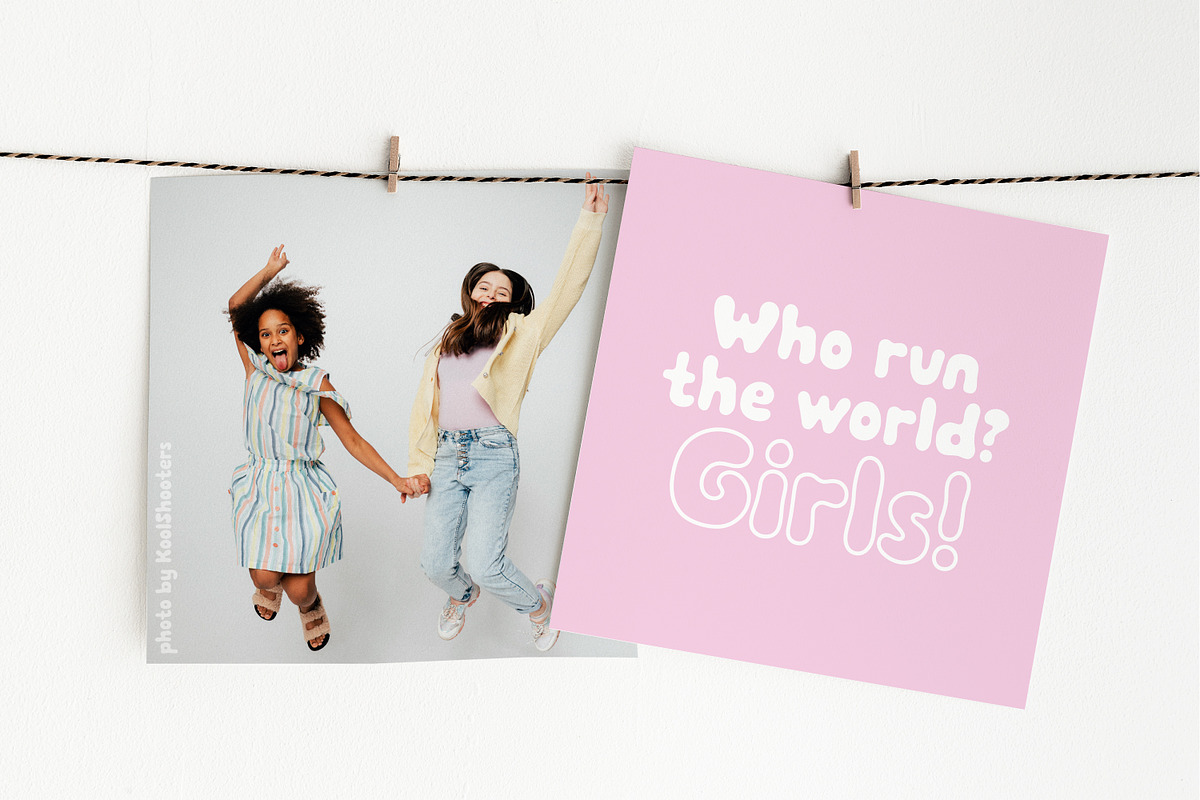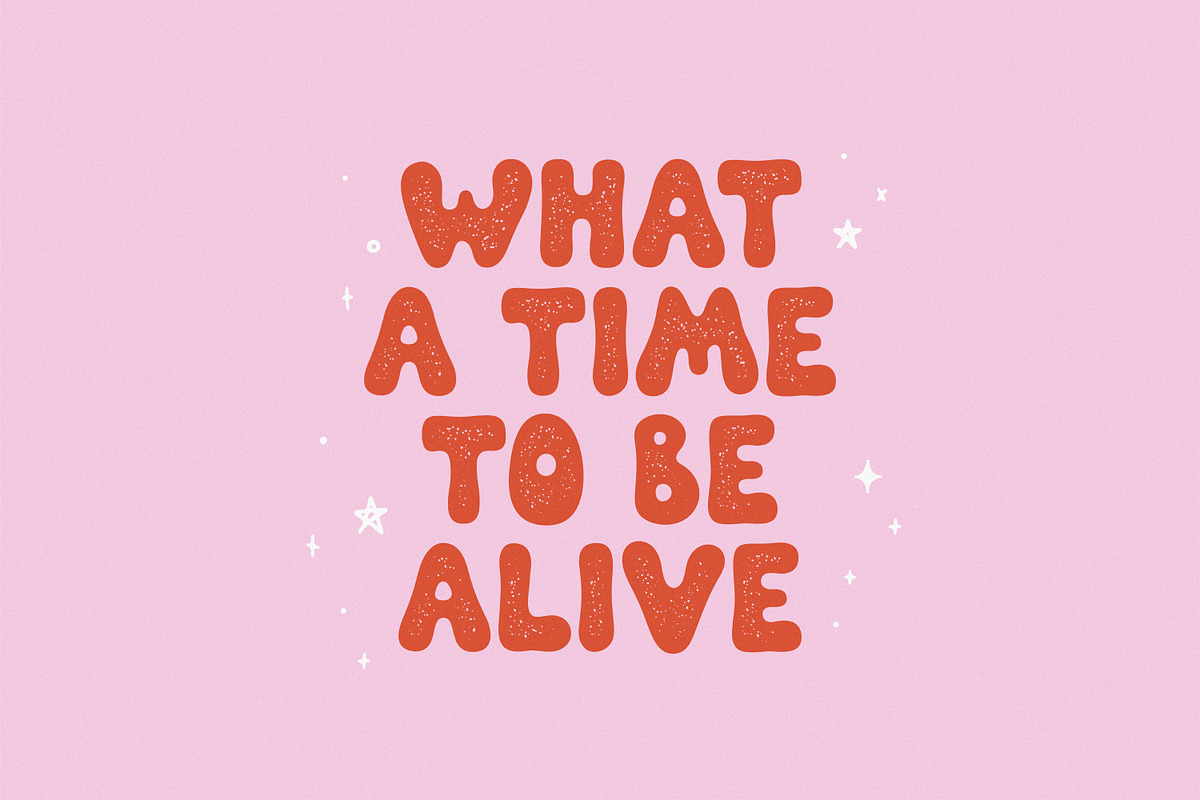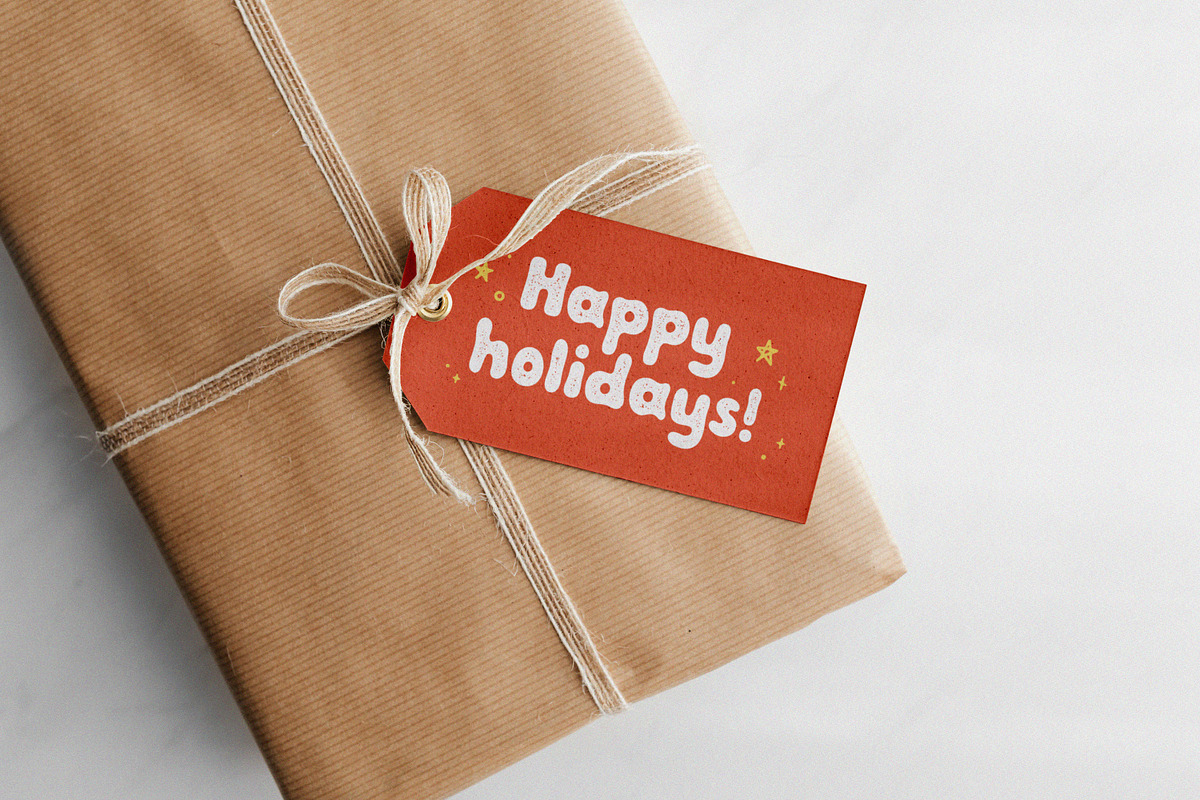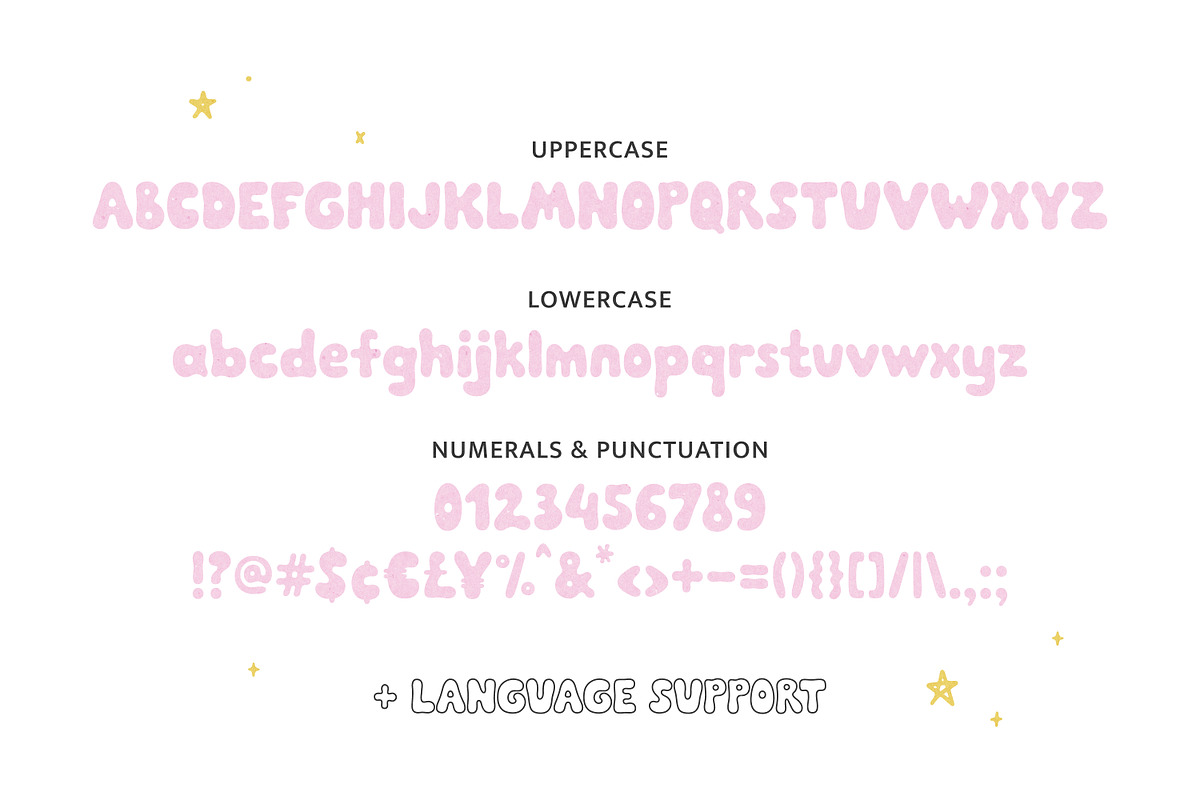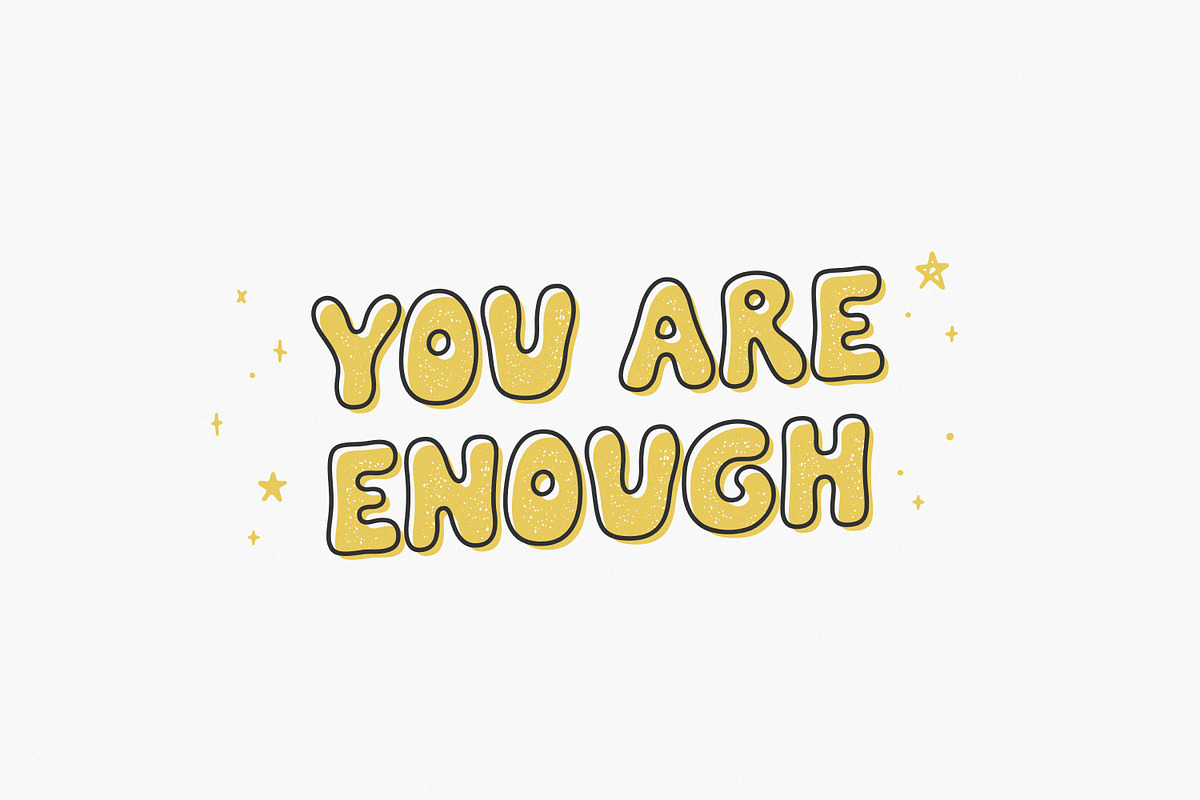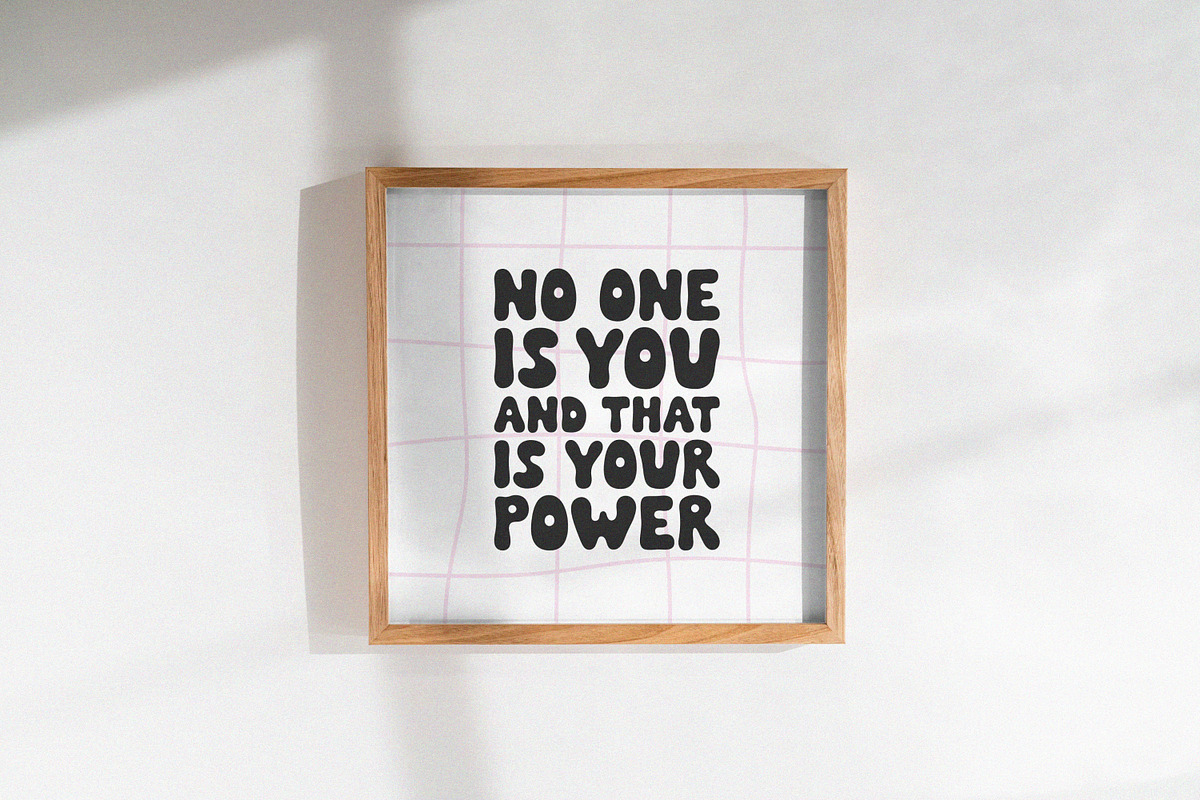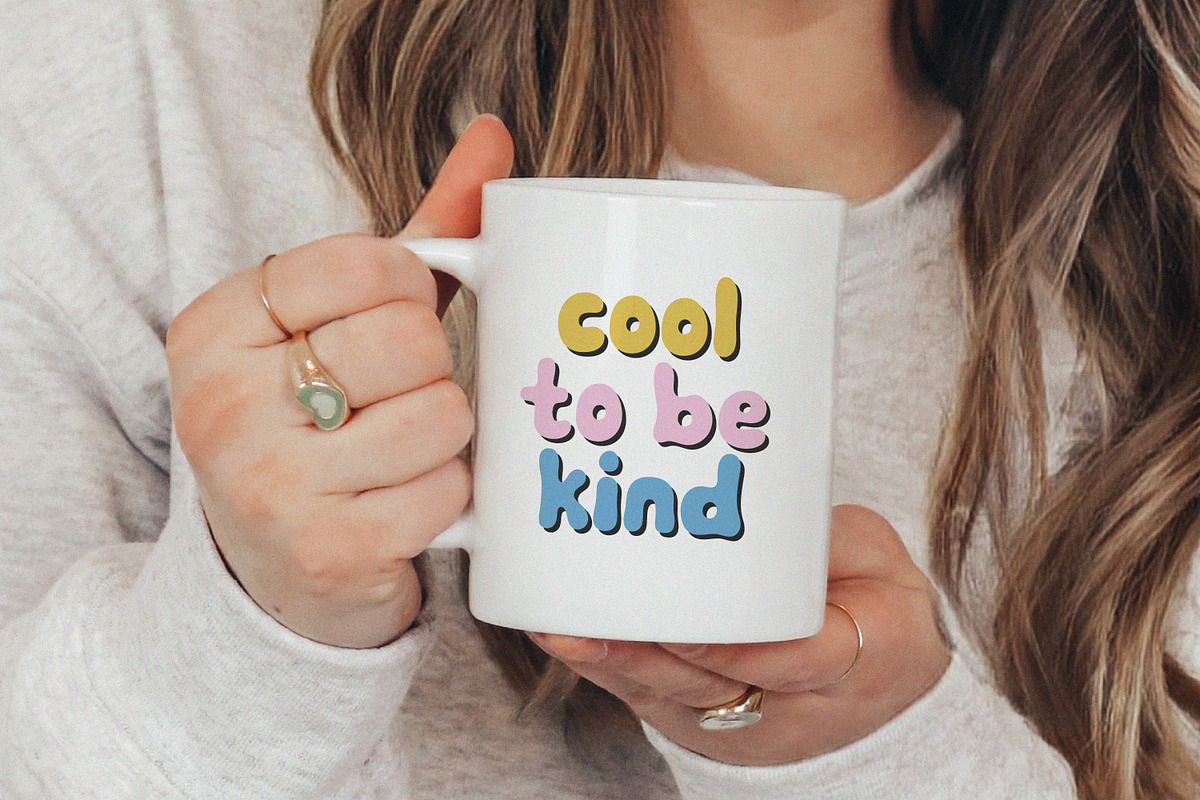
Weirdo - Groovy Retro Font
Weirdo is a groovy retro font in three styles. Perfect for logos, branding, packaging, apparel, cards, posters, stickers, quotes, social media posts and more!
- Weirdo Regular
- Weirdo Outline
- Weirdo Textured